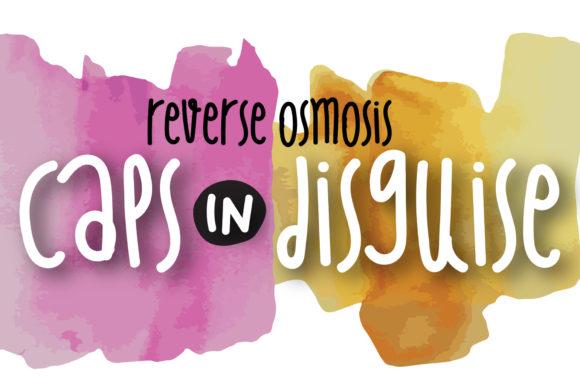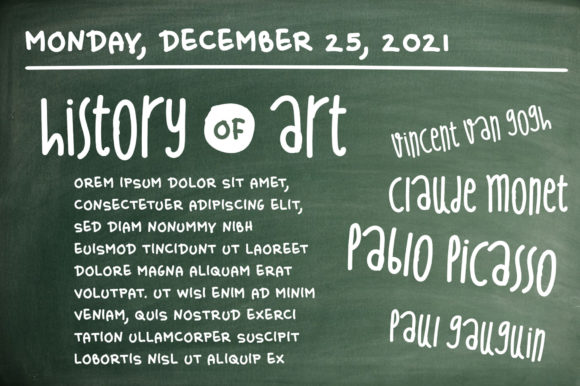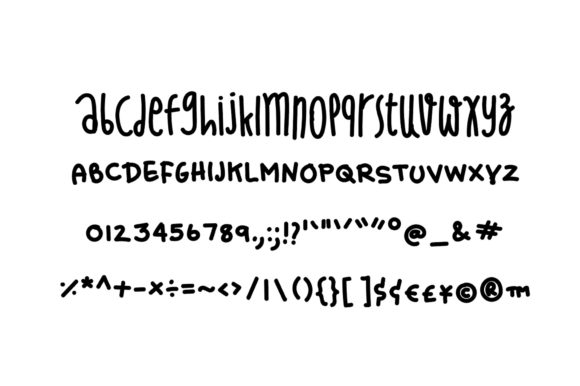
Reverse Osmosis Font
About Reverse Osmosis Font
Reverse Osmosis is a sweet and friendly handwritten font. Its natural and unique style makes it incredibly fitting to a large pool of designs. The only limit is your imagination!